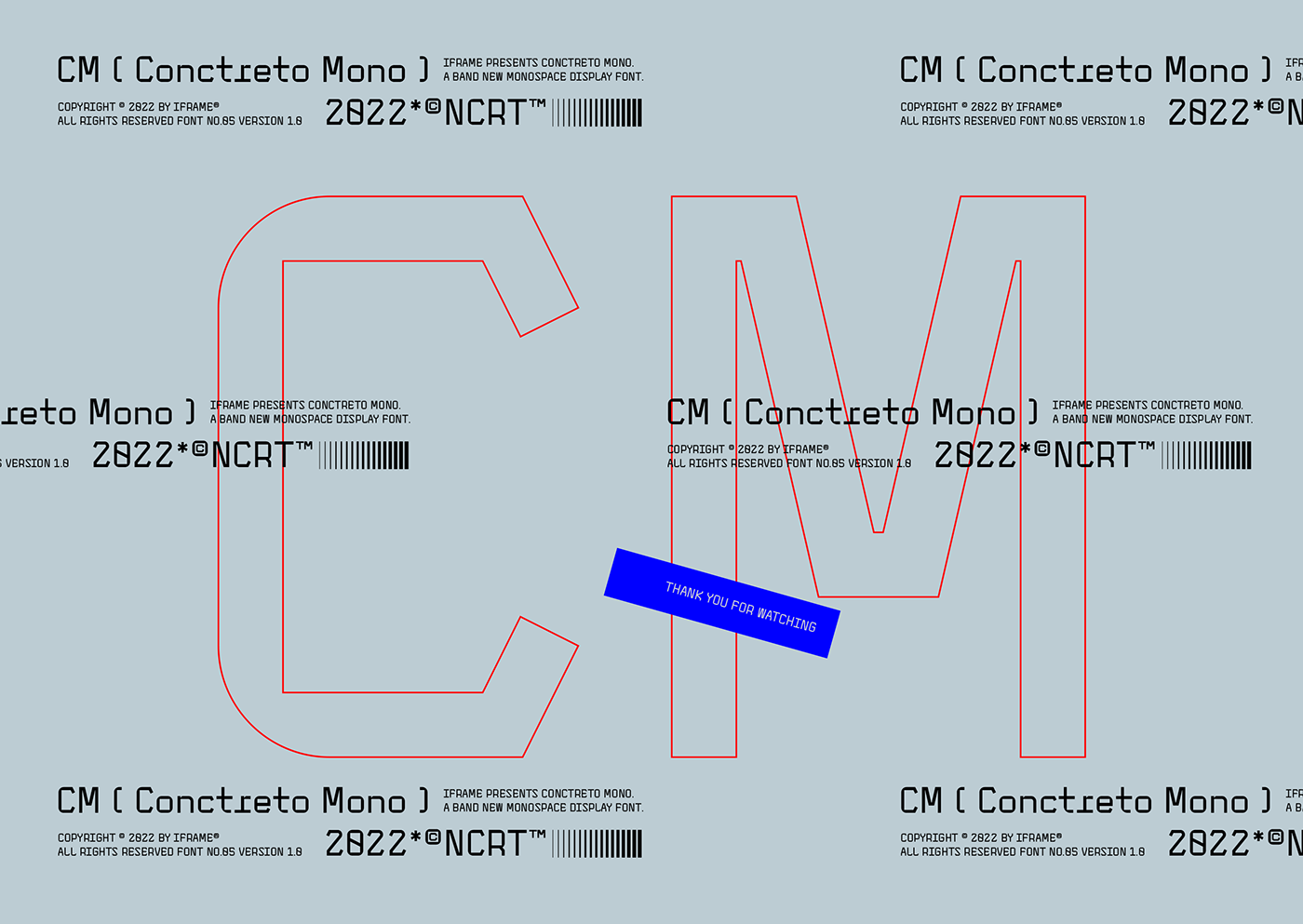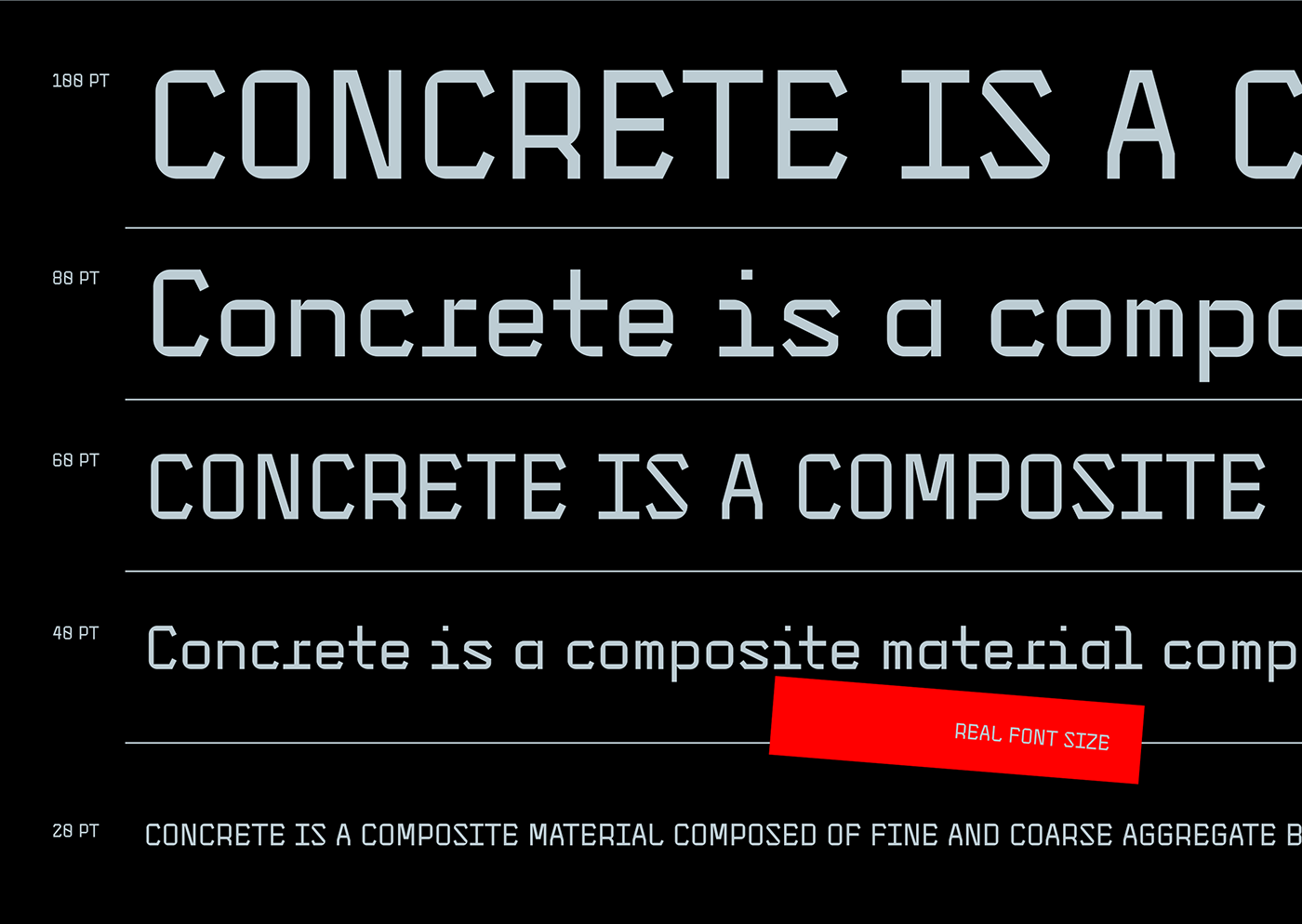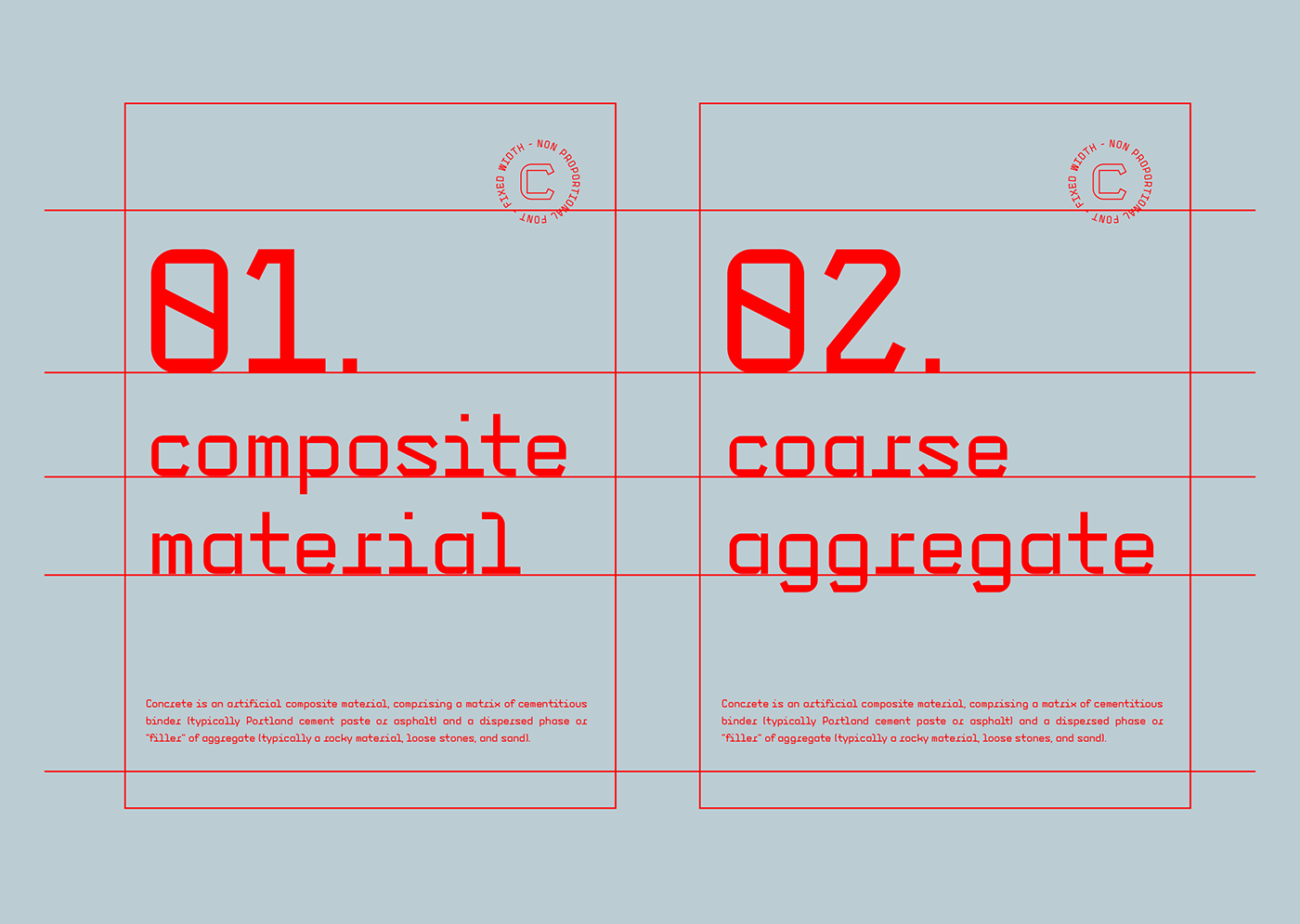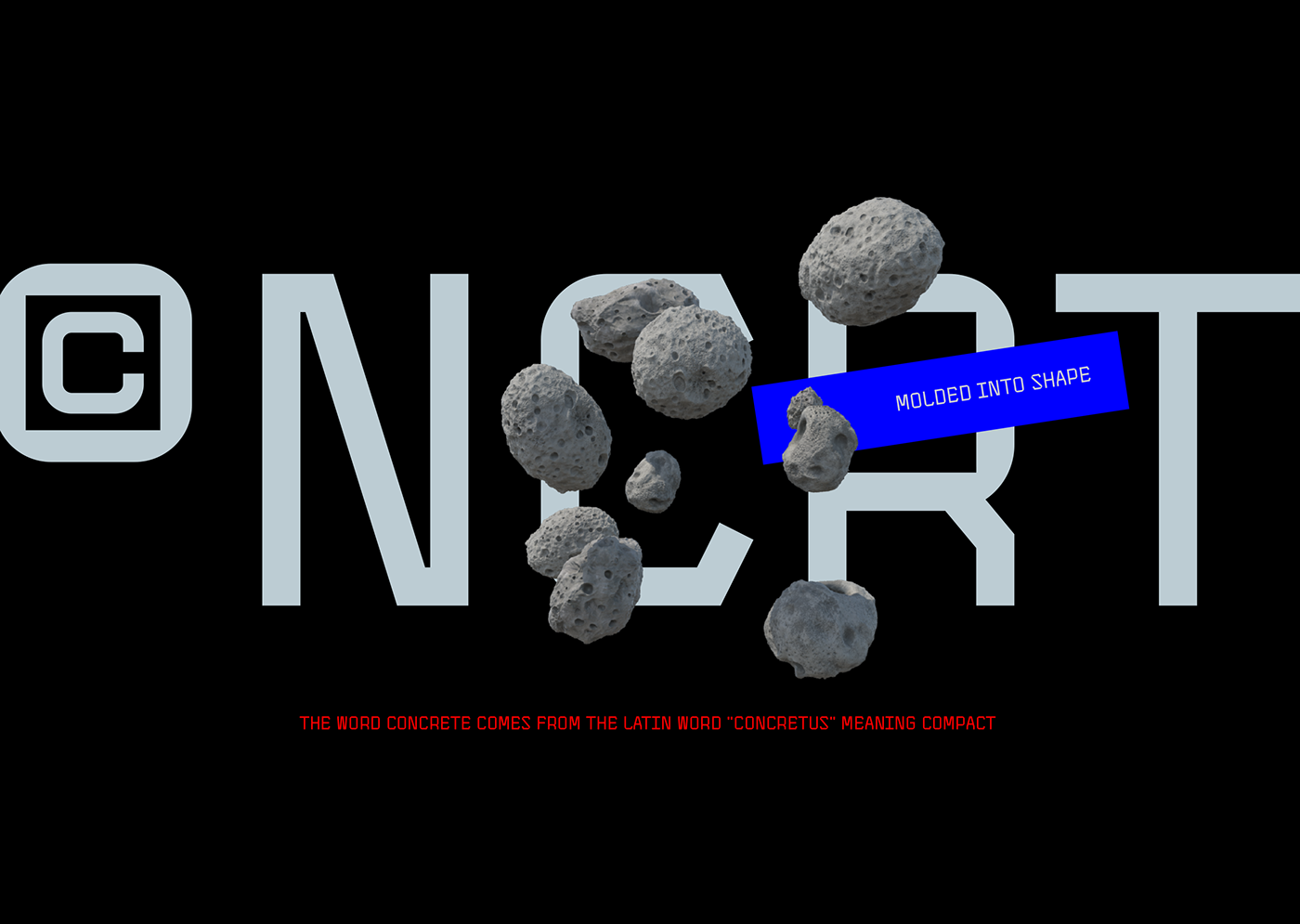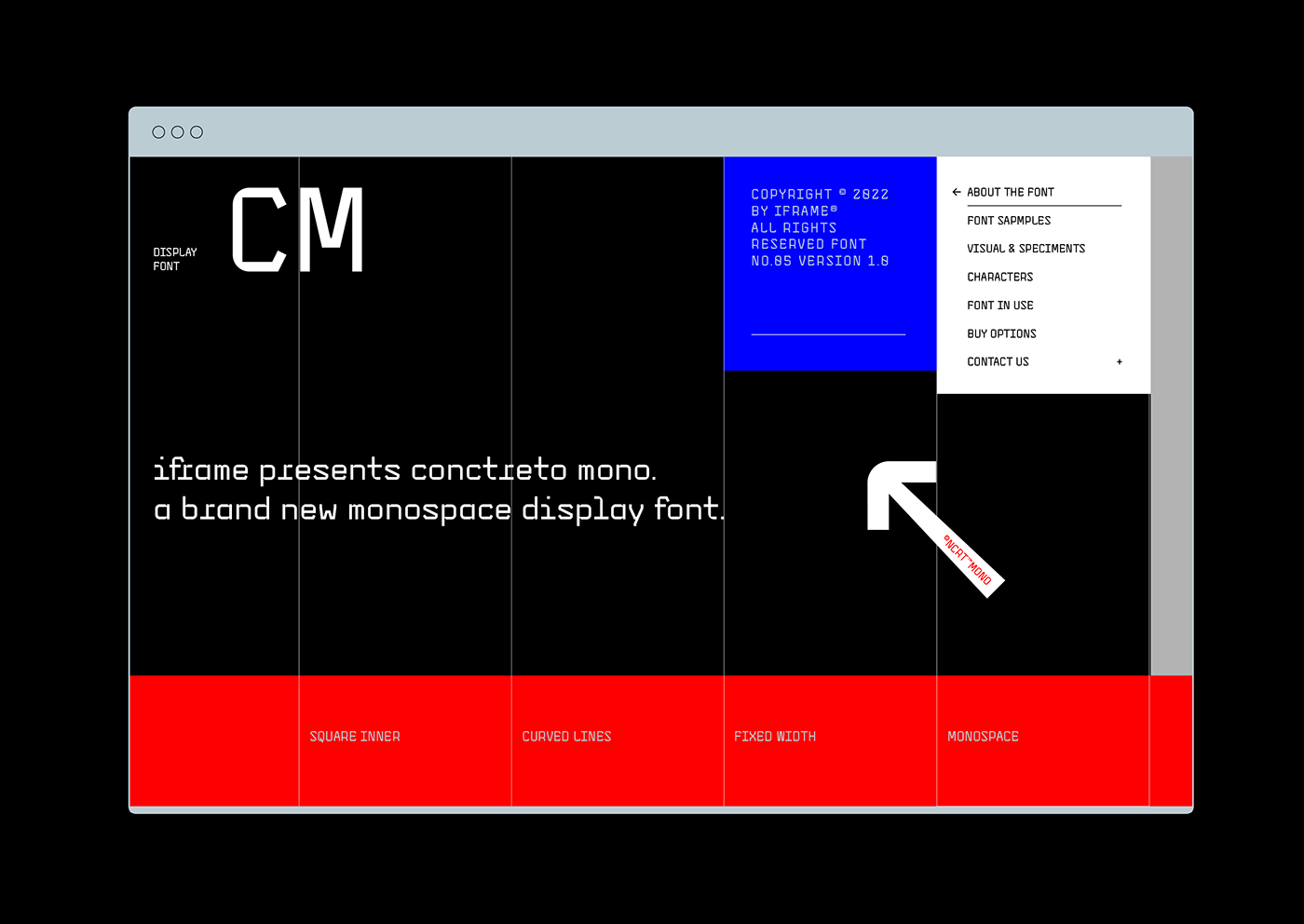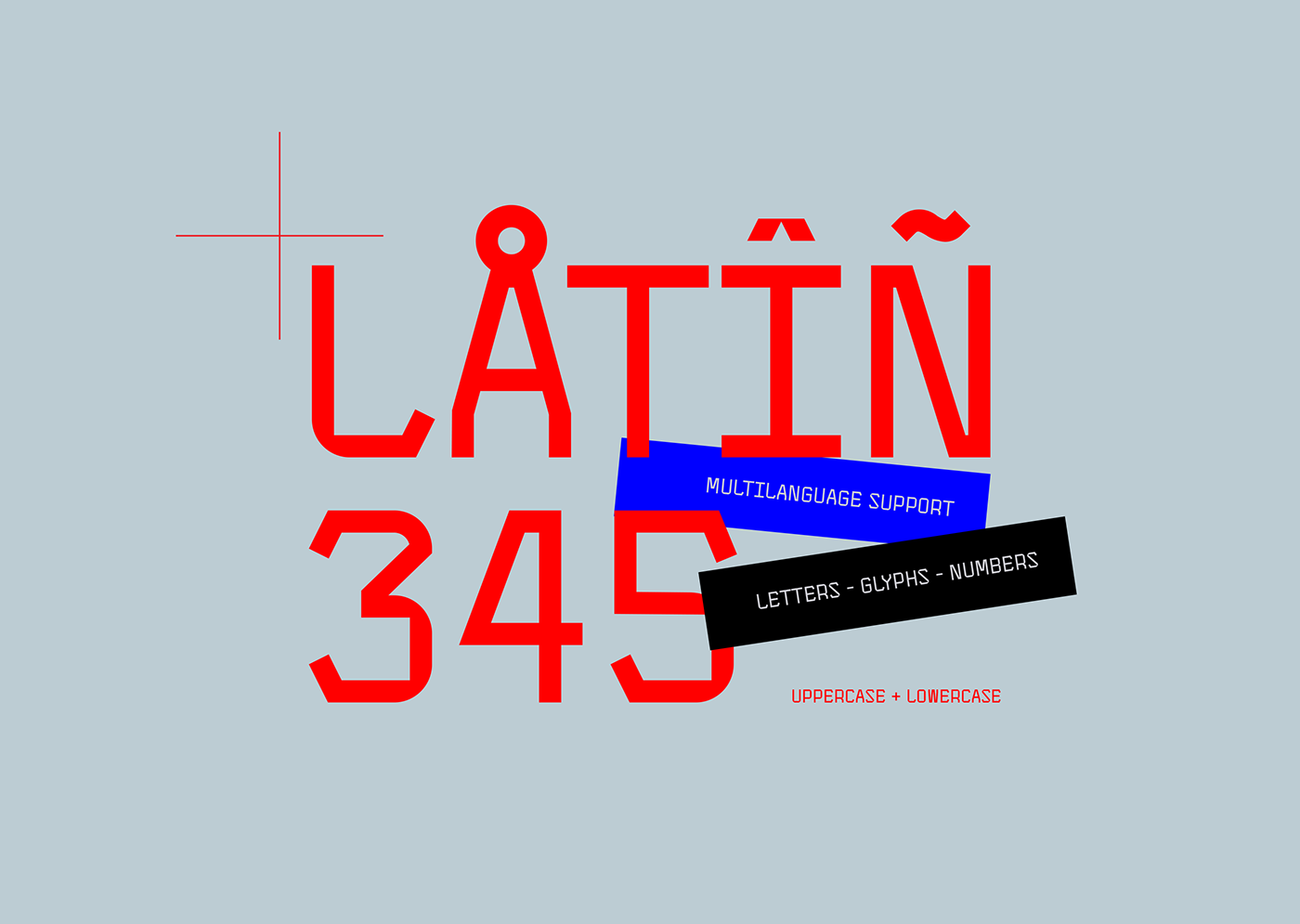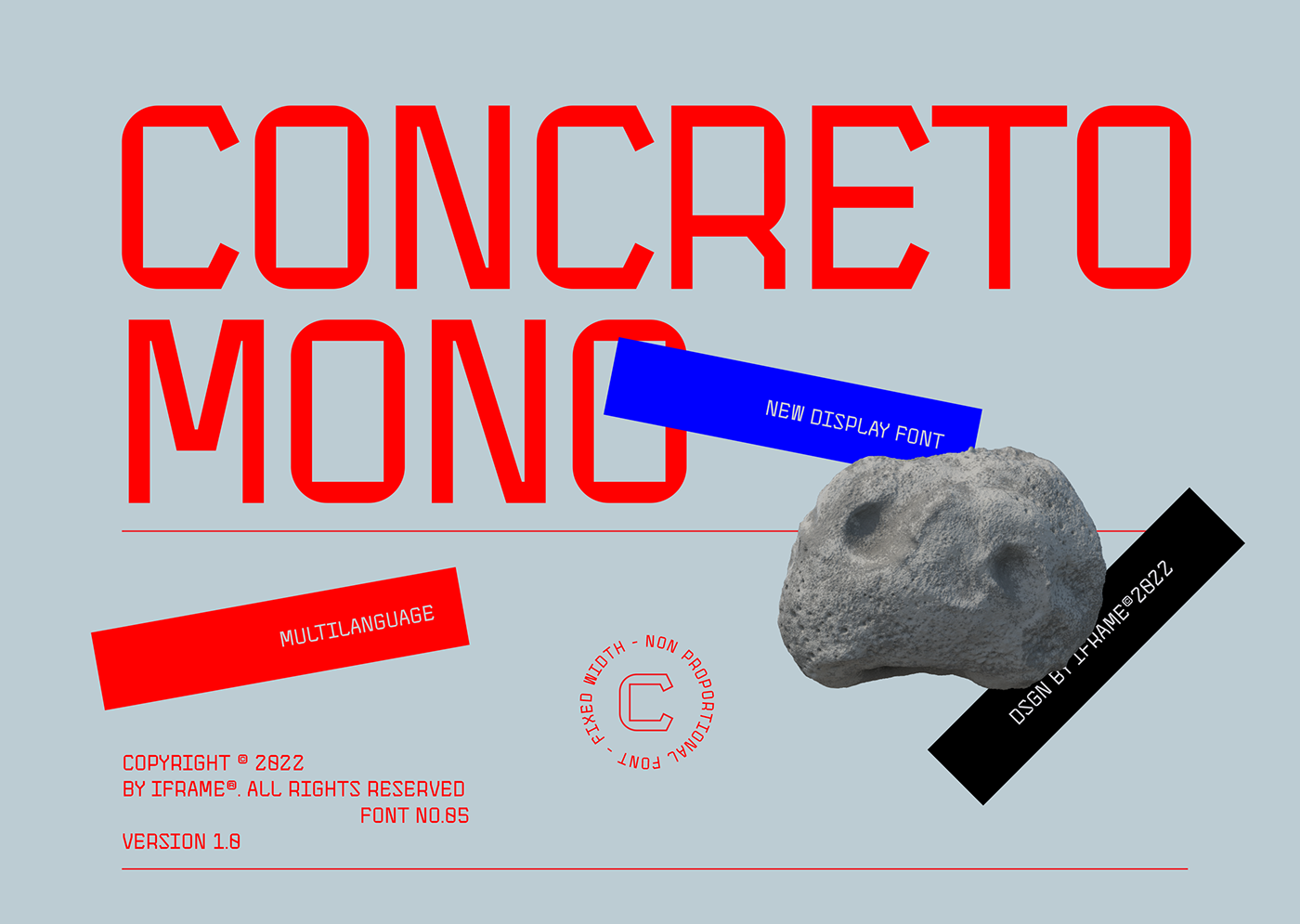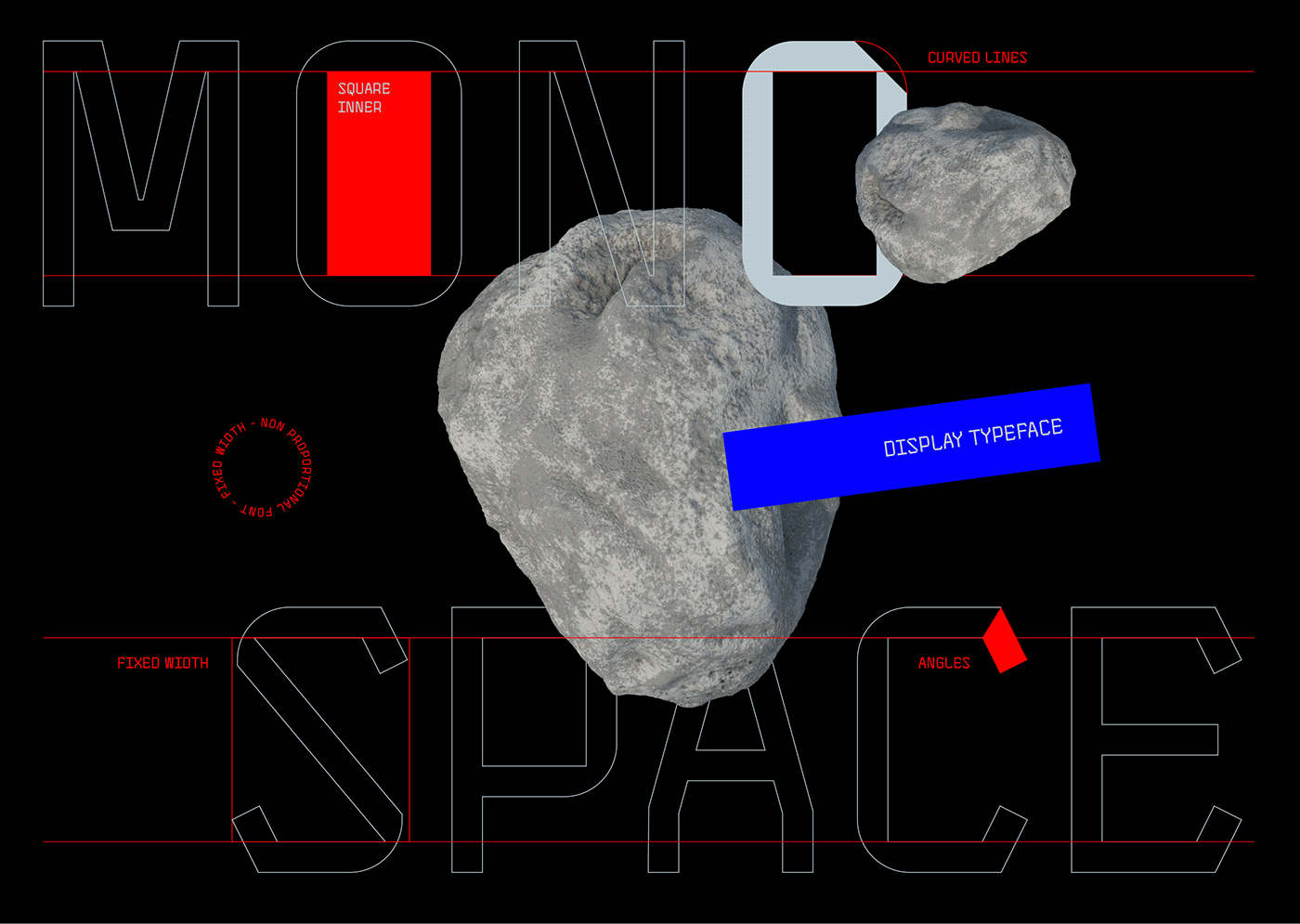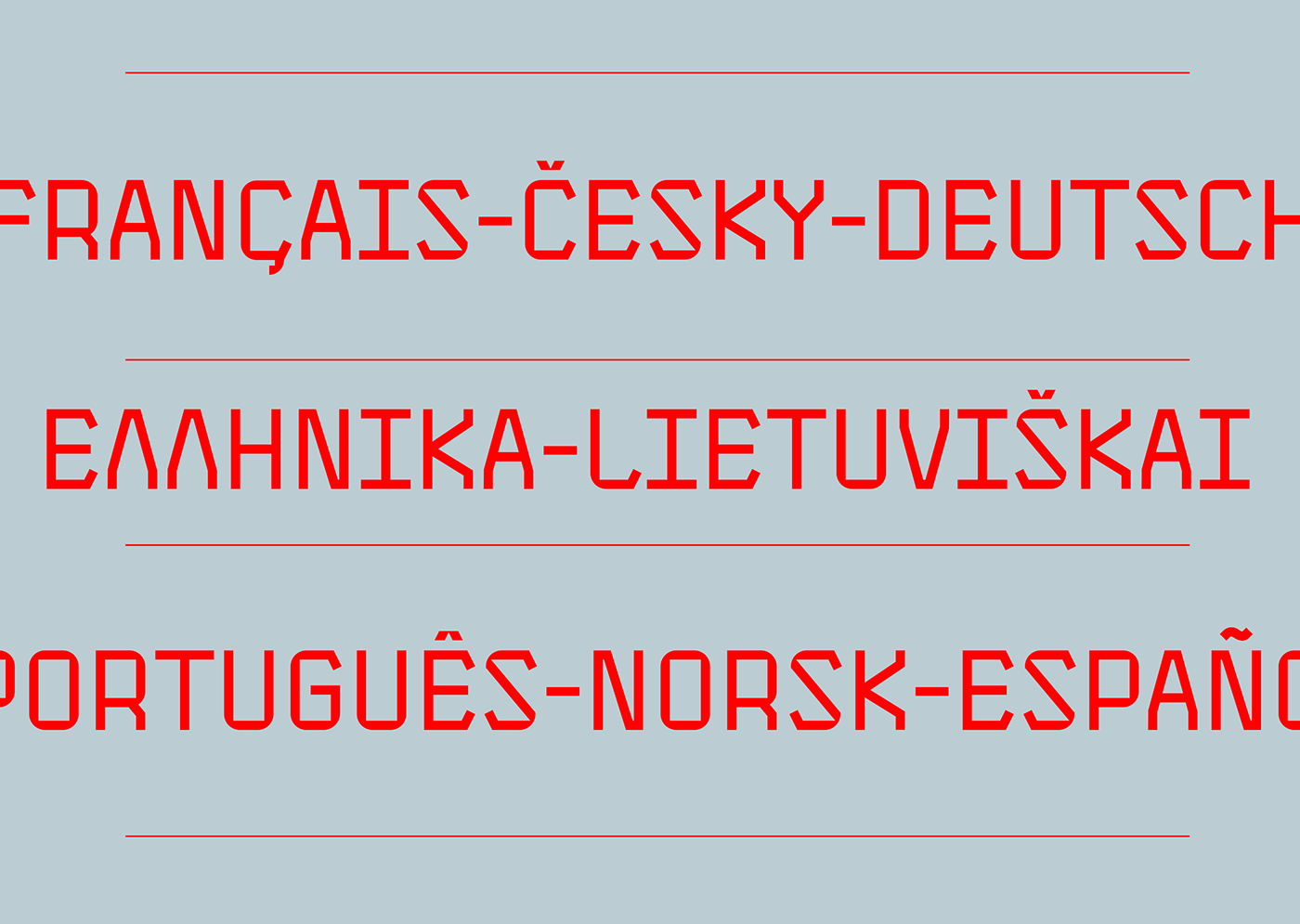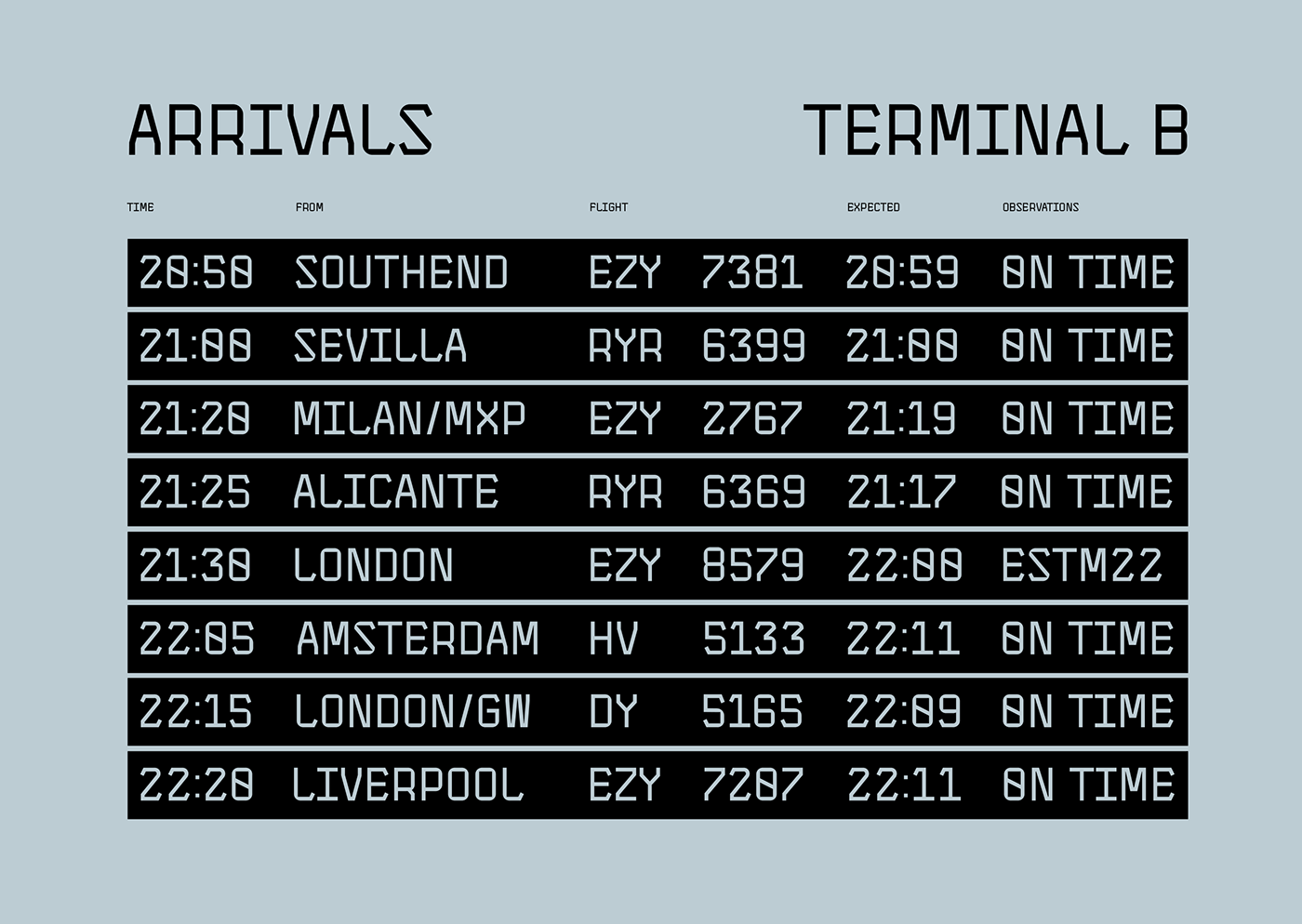
Concreto Mono is a monospaced san serif, built in regular style. The word concrete comes from the Latin word "concretus" meaning compact. Concreto Mono is released in OpenType format with support for many languages and Greek. | Concreto Mono | iframe fonts